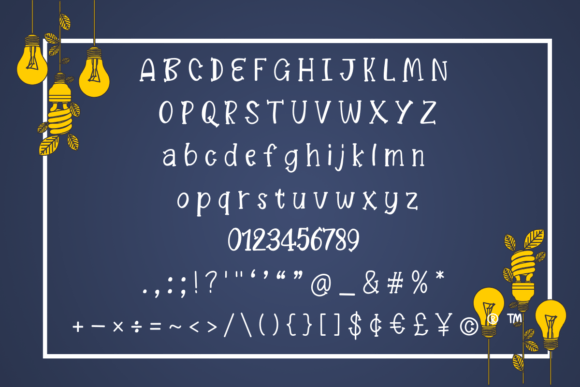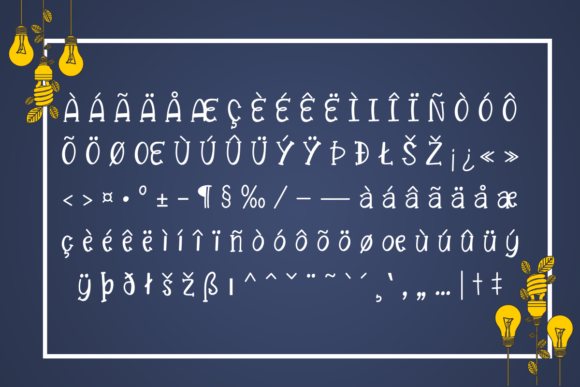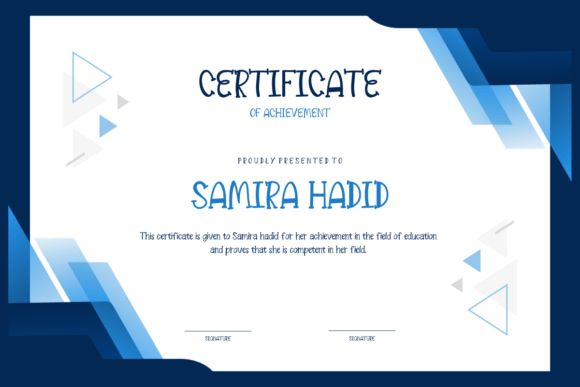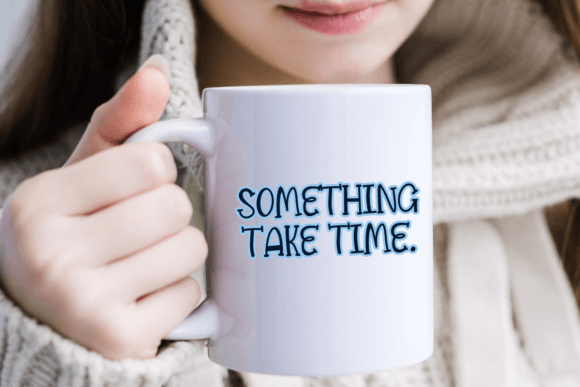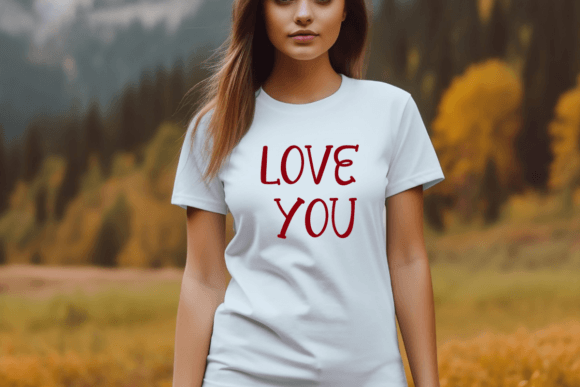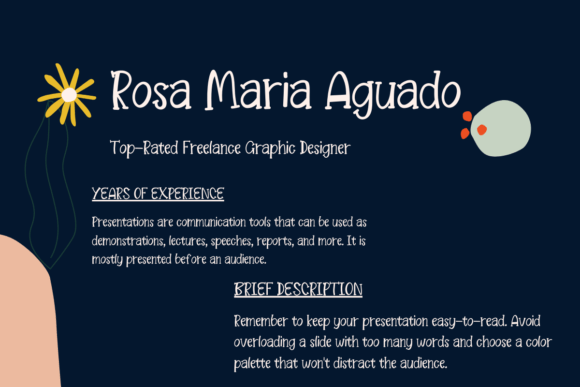
Introduction to Lithium Font
Remember that moment when you stumbled upon the perfect font to match your creative project? The excitement and satisfaction of finding just the right design element to elevate your work? For designers, this feeling is a familiar one, and it’s what makes the discovery of a high-quality font like Lithium Font so thrilling.
Lithium Font, a beautiful handwritten font, offers a unique charm that’s perfect for a wide range of creative projects. With its transparent background and free download option, it’s an invaluable design resource for anyone looking to add a personal touch to their work. Whether you’re taking notes, writing a diary, or designing social media posts, Lithium Font is an excellent choice. Its versatility makes it a valuable addition to any designer’s toolkit.
Key Features of Lithium Font
- High-quality, modern design ideal for creative projects
- Transparent background for seamless integration into designs
- Unique characteristics: Unique letterforms, subtle texture, and stylish flair
Honest Review: Lithium Font
Lithium Font is a versatile, high-quality font that I’ve had the pleasure of working with on several creative projects. One of the standout features of this font is its ability to seamlessly integrate with a transparent background, allowing for a clean and modern aesthetic.
- ✨ Unique and modern design that adds a touch of sophistication to any creative project
- ✨ High-quality vectors that ensure crisp and clear typography
- ⚠️ Limited character set, which may not be ideal for projects requiring extensive typographical support
- ⚠️ Not suitable for very small font sizes, as the lines can become slightly jagged
Overall, I’m impressed with the Lithium Font and its potential to elevate any creative project. While it may have some limitations, its unique design and high-quality vectors make it a valuable addition to any designer’s toolkit. If you’re looking for a modern and sleek font for your next design project, Lithium Font is definitely worth considering.
Experiment with different font sizes and styles to find the perfect balance for your design. You can also pair the Lithium Font with other design resources to create a unique and eye-catching visual identity.
The Lithium Font is ideal for a variety of creative projects, including business cards, brochures, and website designs. Its sleek, modern design makes it perfect for any project that requires a touch of sophistication and elegance.